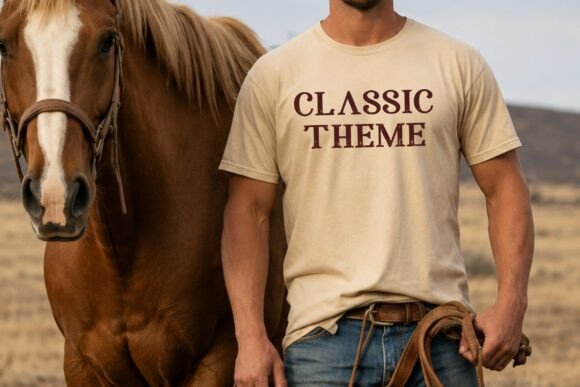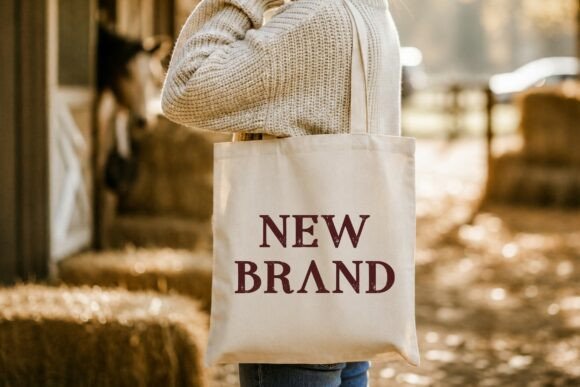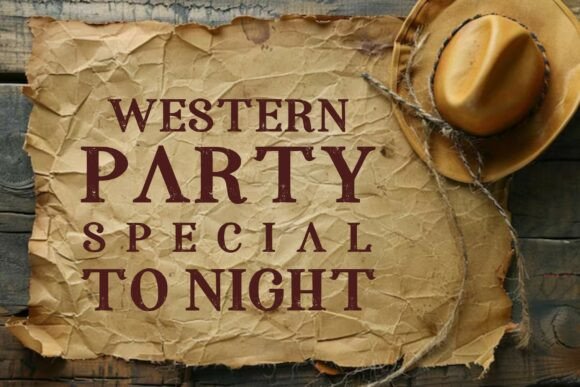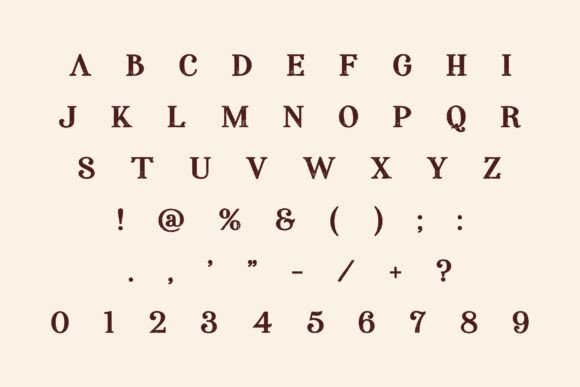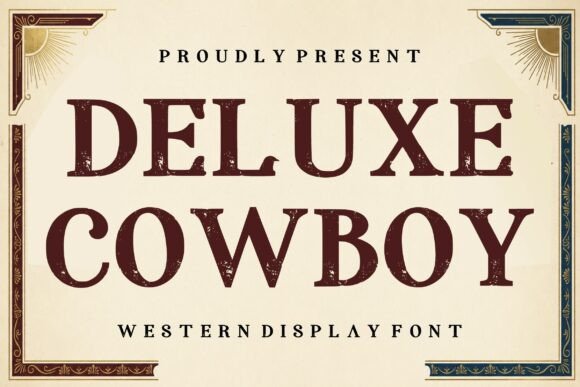
Introducing Deluxe Cowboy: The Ultimate Font for Western-Inspired Designs
Are you looking for a font that embodies the spirit of the Wild West? Do you want to add a touch of rustic charm and masculinity to your designs? Look no further than Deluxe Cowboy, a bold and rugged display font inspired by classic Western typography and vintage cowboy aesthetics.
The Inspiration Behind Deluxe Cowboy
Deluxe Cowboy is more than just a font – it’s a journey back in time to the era of cowboys, saloons, and wide open spaces. The font’s design is rooted in the classic typography of the American West, with strong serifs, distressed texture, and a retro flair that evokes the nostalgia of a bygone era.
From the rough-riding cowboys of the open range to the swinging doors of a classic saloon, Deluxe Cowboy brings the authenticity and character of the Wild West to your designs. Whether you’re creating a logo, poster, or apparel design, this font is sure to add a touch of rugged individualism and old-school charm.
Key Features of Deluxe Cowboy
- Bold and rugged design: Deluxe Cowboy is a display font that’s designed to make a statement. Its bold lines and rugged texture make it perfect for headlines, titles, and any other design element that needs to stand out.
- Distressed texture: The font’s distressed texture gives it a worn, vintage look that’s perfect for creating a retro or distressed effect.
- Strong serifs: The font’s strong serifs add a touch of classic elegance to the design, while also reinforcing the font’s rugged, Western-inspired aesthetic.
- Retro flair: Deluxe Cowboy has a retro flair that’s unmistakable. From the font’s rough edges to its vintage-inspired letterforms, this font is sure to transport your designs back to the Wild West.
Uses for Deluxe Cowboy
Deluxe Cowboy is a versatile font that can be used in a wide range of design applications. Here are just a few ideas to get you started:
- Posters and flyers: Use Deluxe Cowboy to create eye-catching posters and flyers for events, promotions, or products.
- Logos and branding: The font’s bold, rugged design makes it perfect for logos and branding elements that need to convey a sense of strength and masculinity.
- Apparel designs: Deluxe Cowboy is a great choice for apparel designs, from t-shirts to hats to jackets.
- Signage: The font’s distressed texture and retro flair make it perfect for signage, from storefronts to billboards.
- Branding and packaging: Use Deluxe Cowboy to add a touch of Western charm to your branding and packaging elements.
Why Choose Deluxe Cowboy?
So why choose Deluxe Cowboy over other fonts? Here are just a few reasons:
- Authentic Western feel: Deluxe Cowboy captures the spirit of the Wild West in a way that’s hard to find with other fonts.
- High-quality design: The font is designed to high standards, with clean lines, precise letterforms, and a consistent look and feel.
- Versatility: Deluxe Cowboy can be used in a wide range of design applications, from posters to logos to apparel designs.
Deluxe Cowboy is a bold and rugged display font that’s perfect for designers and crafters who want to add a touch of Western charm to their work. With its strong serifs, distressed texture, and retro flair, this font captures the spirit of the Wild West in a way that’s hard to find with other fonts.
Whether you’re creating a saloon-style design or a modern western theme, Deluxe Cowboy brings authenticity and character to your work. So why wait? Download Deluxe Cowboy today and start adding a touch of rustic charm and masculinity to your designs.